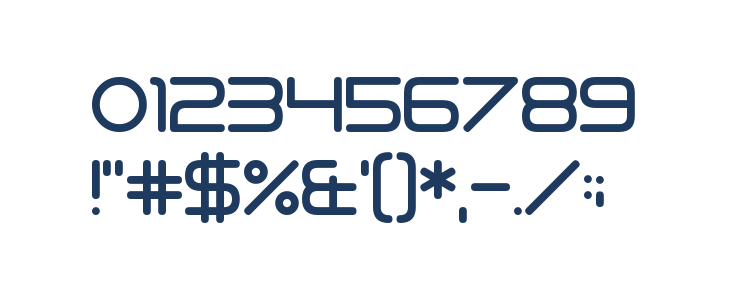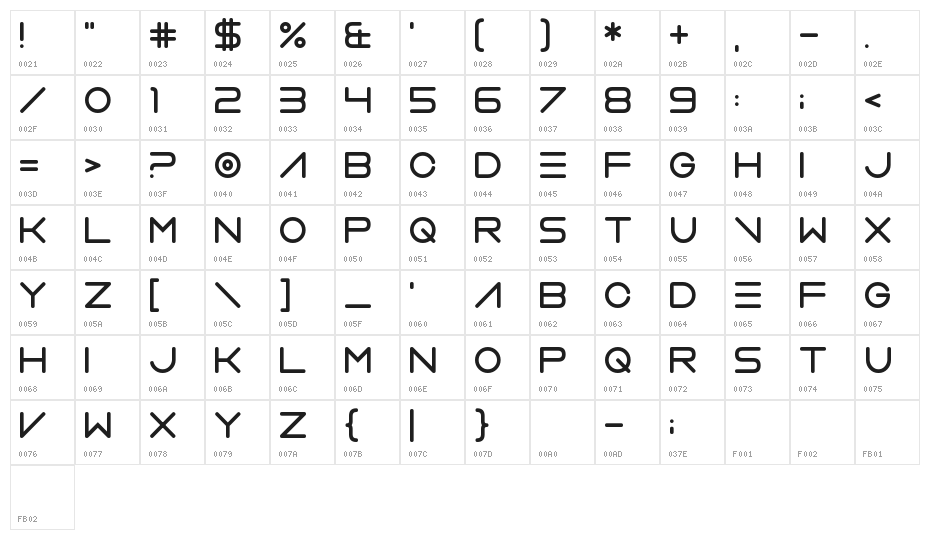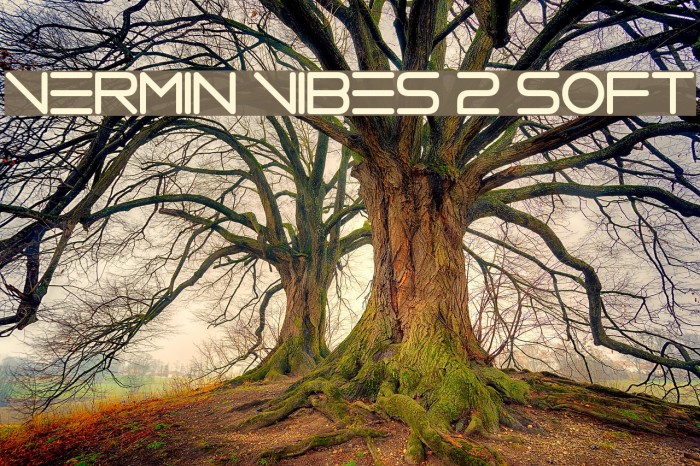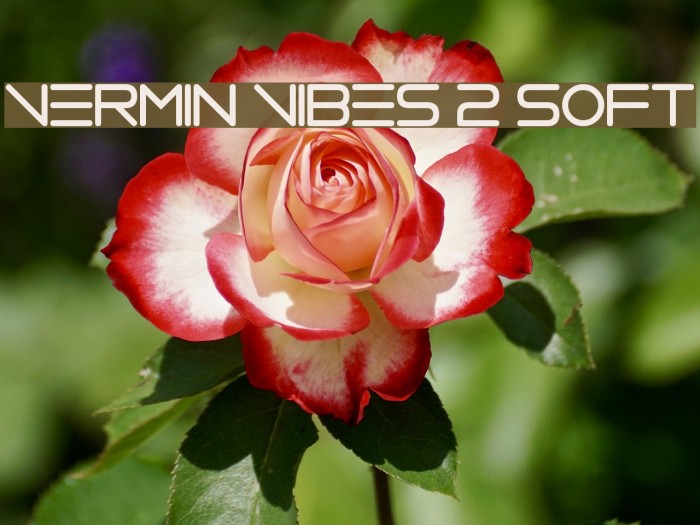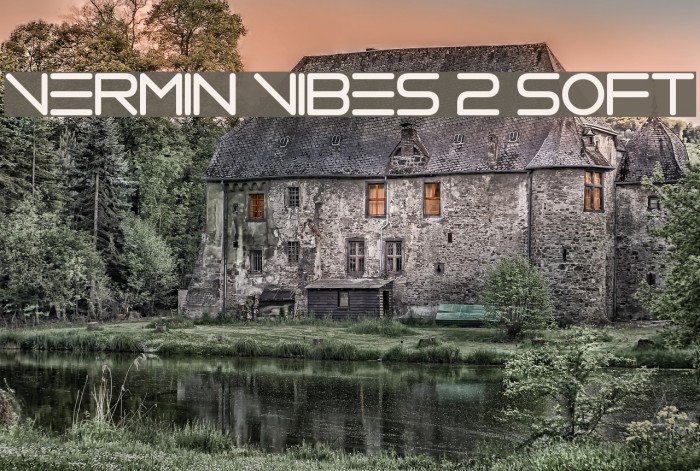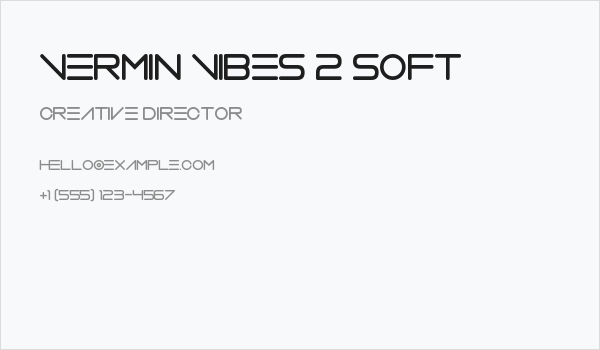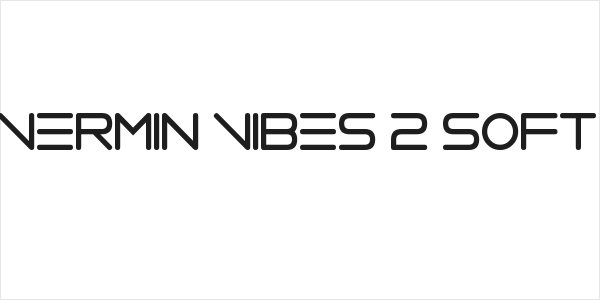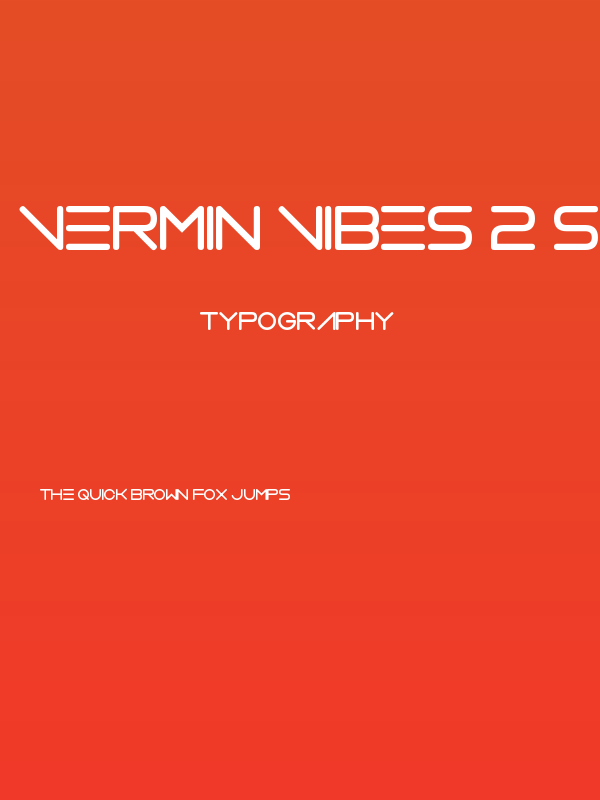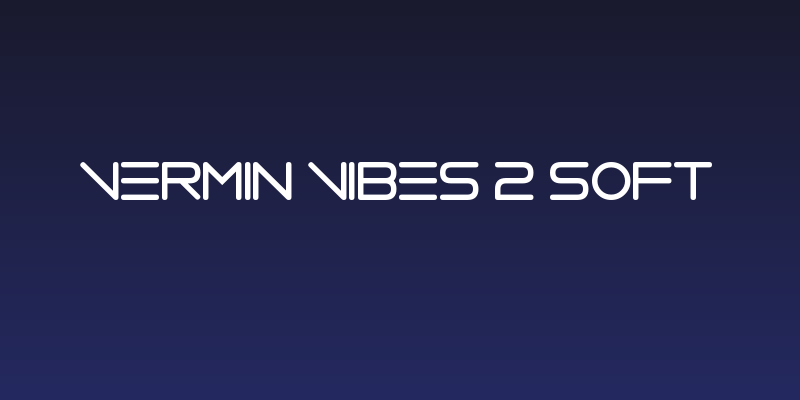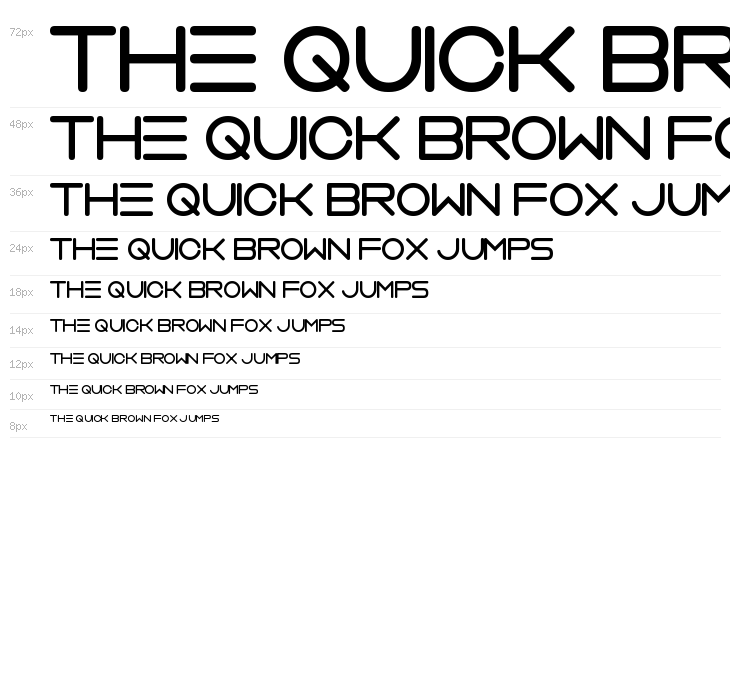
Vermin Vibes 2 Soft Font
Vermin Vibes 2 Soft Description
This font features a modern, geometric design with rounded edges and a clean, streamlined appearance. The characters are constructed with consistent stroke widths, giving it a uniform and cohesive look. The uppercase and lowercase letters share a similar structure, enhancing readability and visual harmony. The numerals and special characters maintain the same design principles, ensuring a balanced and aesthetically pleasing appearance across all elements. Its futuristic style makes it suitable for contemporary design projects.
| Use Case | Logos, Headlines, Digital Interfaces |
| Proposed Projects | Ideal for technology branding, modern advertising, digital interfaces, and futuristic-themed designs. |